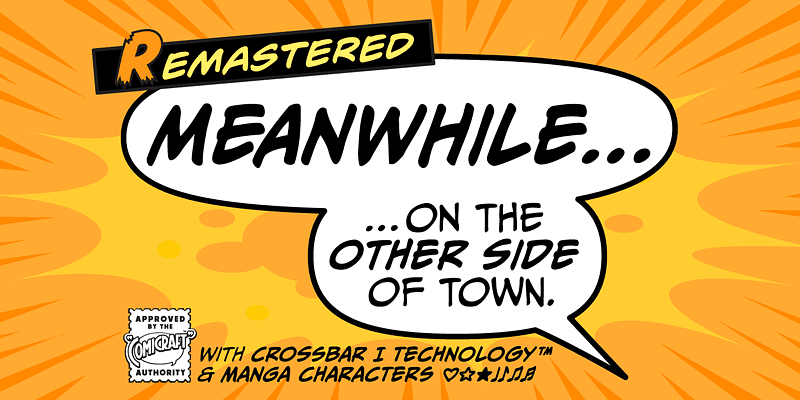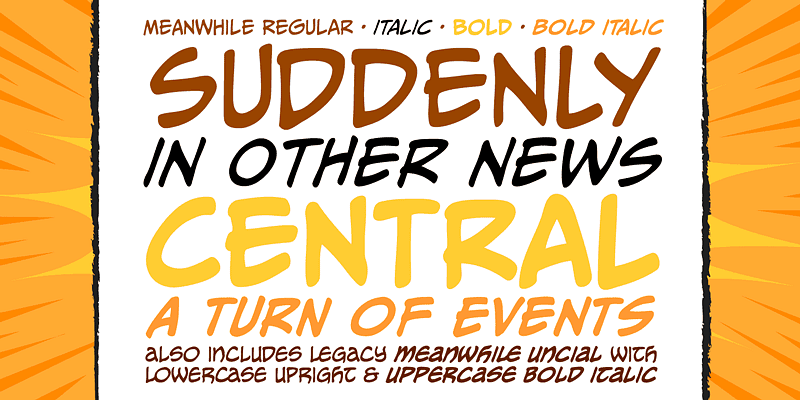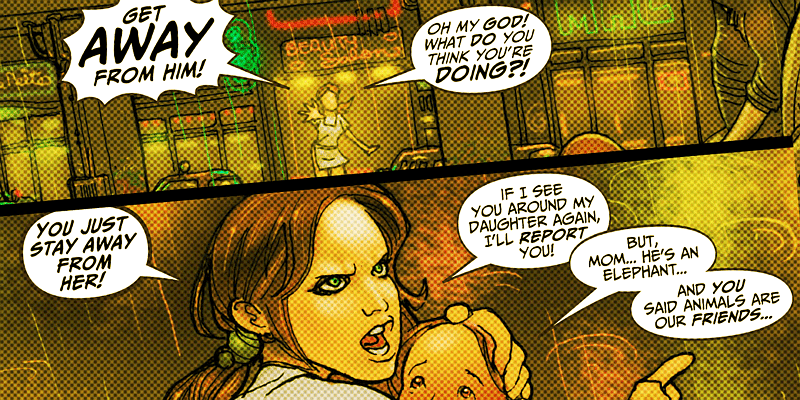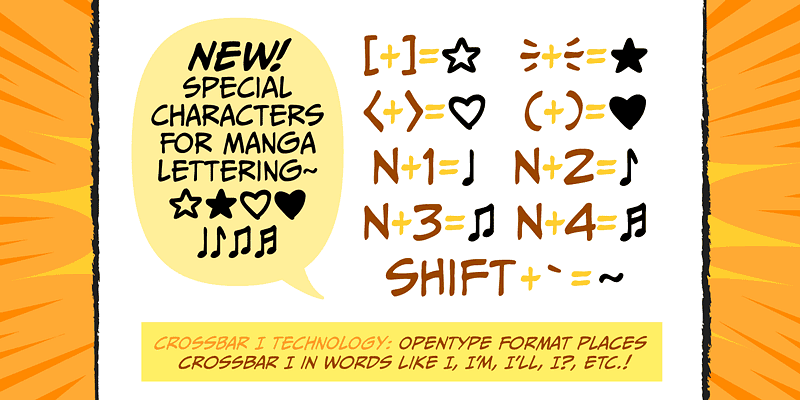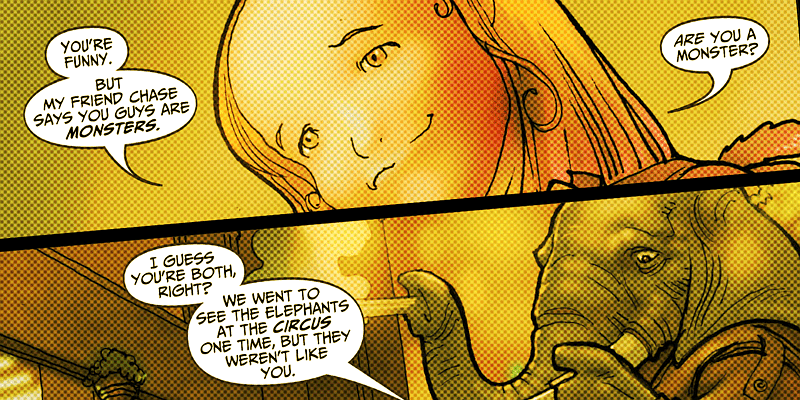
When “Suddenly –” just isn’t “Soon…” enough, and “Later…” isn’t quite “The Next Day…” it’s time for “Meanwhile…” – a font created to tell the tales of THE AVENGERS and FANTASTIC FOUR. “And now, back to the action…”
A great font for comic book text!